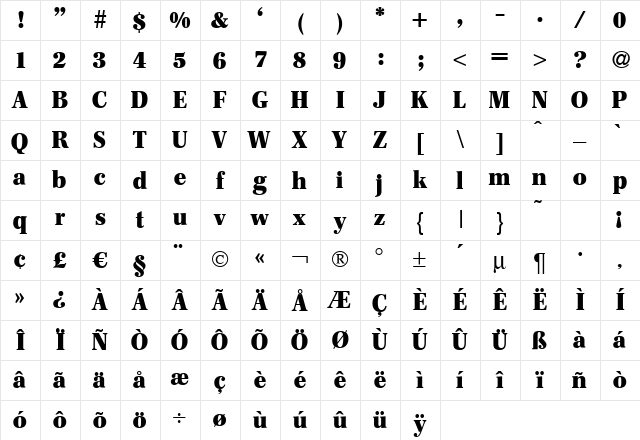
Complete F820-Roman-Heavy Regular glyph index. Displaying only characters natively supported by F820-Roman-Heavy Regular font.
F820-Roman-Heavy is a composed and adaptable typeface that performs quietly and consistently across a wide range of design contexts.
Pro Tip: Use F820-Roman-Heavy in both headline and body roles to test its range before committing to a single application.